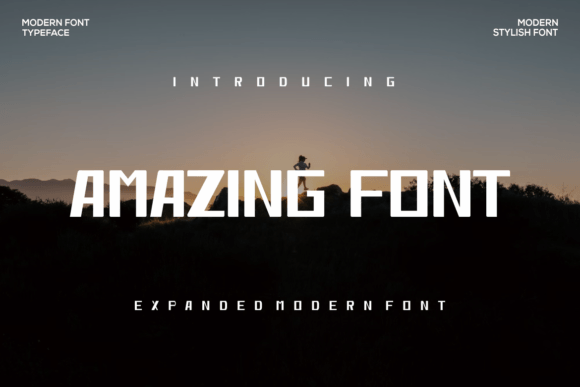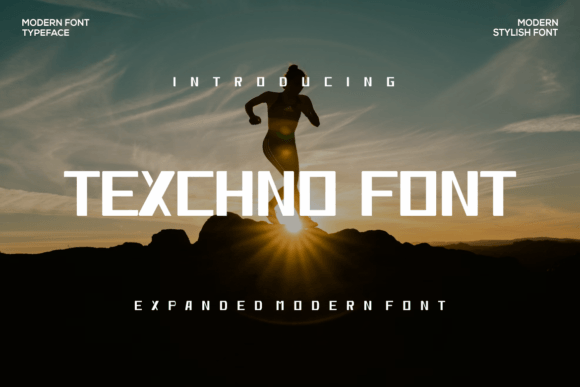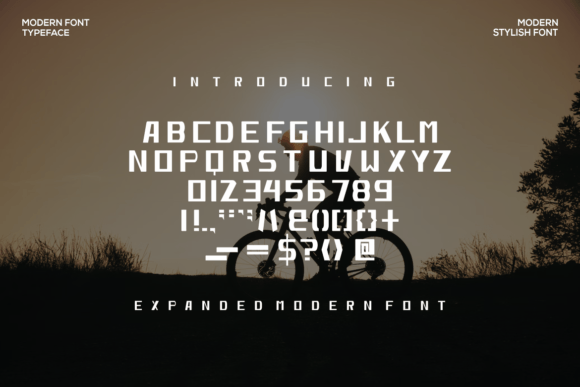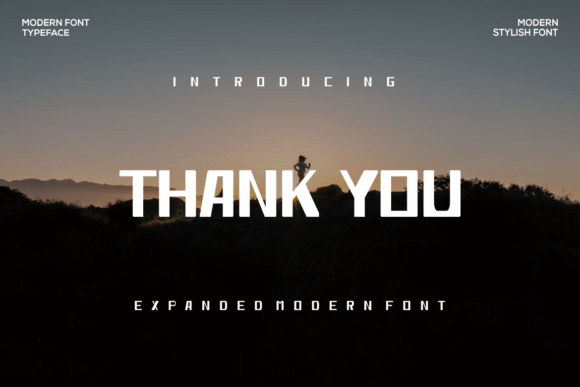
Introduction to Becaxs Font
Remember the rush of excitement when you finally stumble upon the perfect design element for your creative project? It’s that moment when all the pieces come together, and your vision starts to take shape. For designers, finding the right font can be the game-changer that elevates their work from good to great.
Enter Becaxs Font – a modern, bold, and authentic display font that’s about to become your new design BFF. With its versatility and high-quality design, Becaxs Font is the perfect addition to any branding project, from logos to t-shirt printing and everything in between.
Key Features of Becaxs Font
- High-quality design font with a unique, modern style suitable for creative projects.
- Designed as a versatile design resource, perfect for use in logos, branding, and other visual elements.
- Includes a comprehensive character set with Latin and Cyrillic languages for global use.
Honest Review: Becaxs Font
I recently stumbled upon the Becaxs Font, and I have to say, it’s been a great addition to my design resource library. This free download has a lot to offer, especially when it comes to creative projects that require a unique touch.
What works well: ✨ The Becaxs Font is incredibly versatile, making it perfect for various design applications. Its high quality and sleek design make it a great choice for modern creative projects. I also appreciate that it comes with a transparent background, which allows for seamless integration with different design elements.
Overall, I’m quite impressed with the Becaxs Font. Its unique design and high quality make it a great addition to any design library. However, its limitations, especially the lack of commercial use rights, should be taken into consideration.
- High quality and sleek design
- Bold and eye-catching style
Becaxs Font
The Becaxs Font is a high-quality design resource ideal for creative projects that require a unique and professional touch. With its transparent background and elegant style, it’s perfect for designers looking to elevate their work.
Getting the Most Out of Becaxs Font
The Becaxs Font is perfect for a variety of creative projects, including:
How it compares to Becaxs Font: While Becaxs Font has a more modern and edgy feel, Great Vibes Font is more classic and elegant, making it a great alternative for designers who want to create a more traditional look.
Alex Brush Font is a elegant and refined script font that is perfect for designers who want to add a touch of sophistication to their creative project. It’s available for free download and has a transparent background, making it easy to use in any design resource.